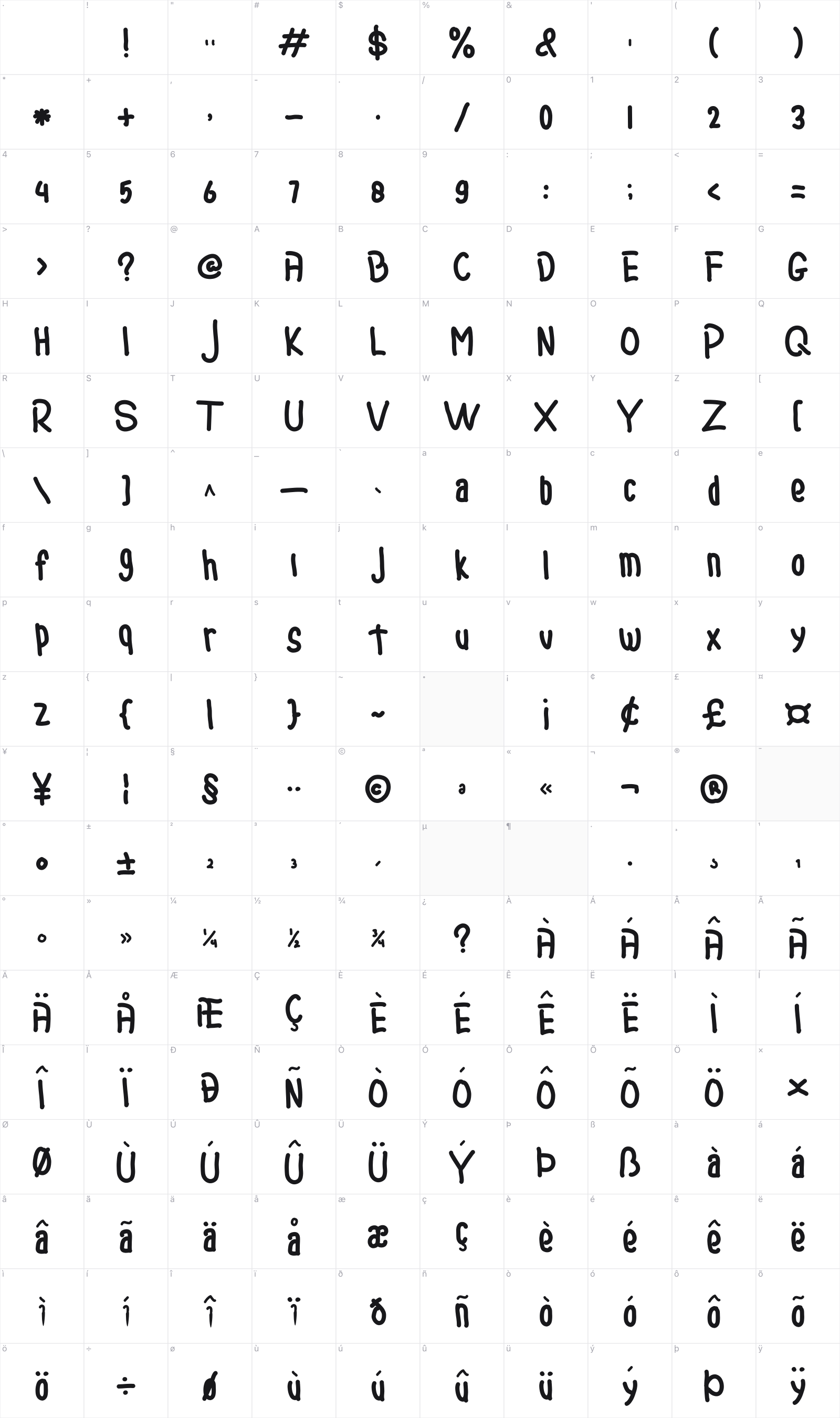
Romzul Sans
Romzul Sans is a bold, rounded display face from Magang Letterhend with soft, pillowy letterforms that feel casual and approachable. There's a quirky unevenness to the shapes that keeps it from looking generic, giving each word a playful, slightly offbeat personality. Best at larger sizes for headlines, packaging, or branding that wants to feel friendly without being childish.